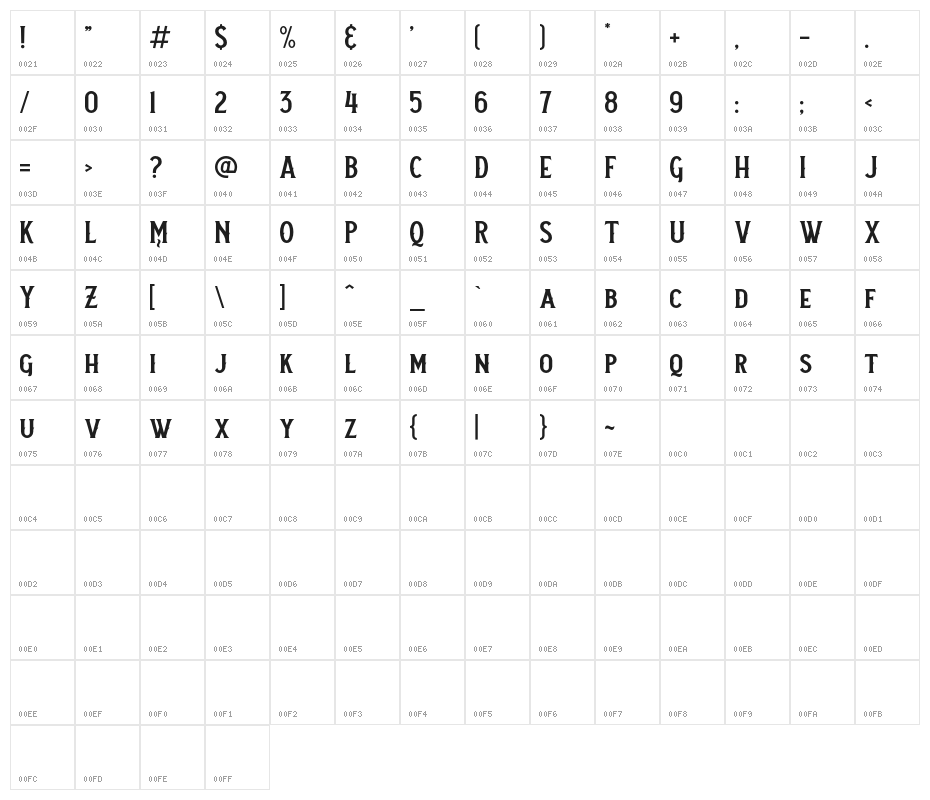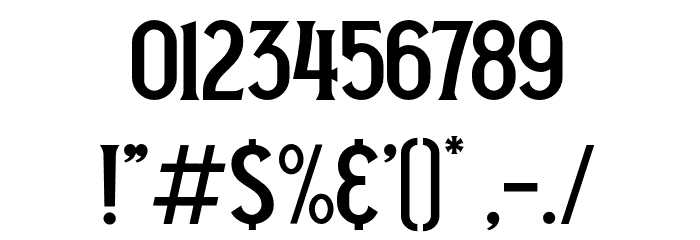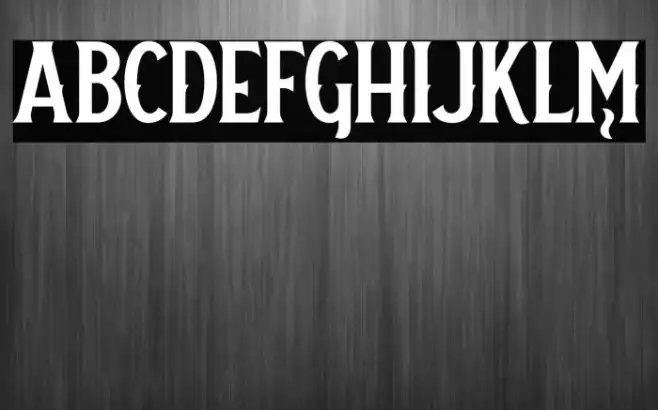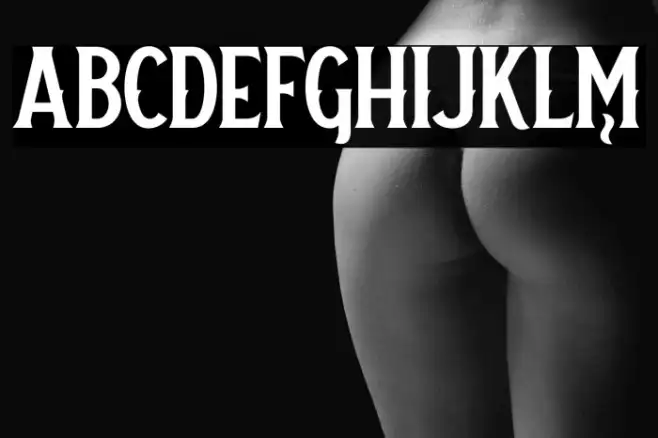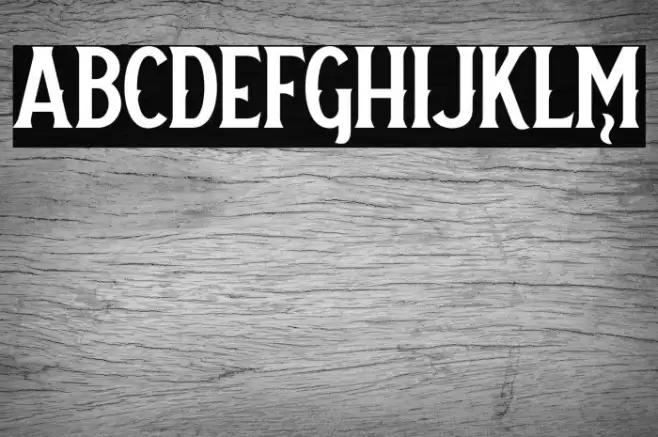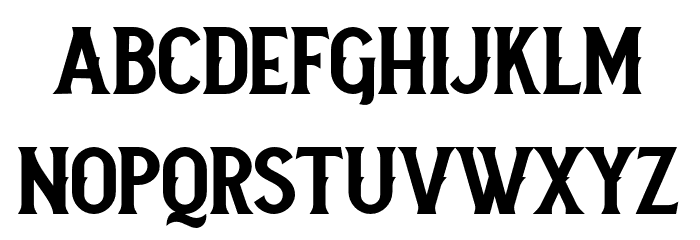
NeueStanley Font
NeueStanley Description
This font features a bold and striking design with a vintage flair, characterized by its sharp serifs and strong vertical stress. The uppercase letters are particularly prominent, with a distinct presence that commands attention. The lowercase letters maintain the same boldness, ensuring consistency across the typeface. Numerals are clear and robust, making them easily legible. The special characters are crafted with the same attention to detail, providing a cohesive look throughout. This font's overall aesthetic is reminiscent of classic serif styles, yet it incorporates modern elements that make it versatile for various design needs.
| Use Case | Headlines, Logos, Editorial Design |
| Proposed Projects | Ideal for branding projects, editorial designs, posters, and any creative work that requires a classic yet modern touch. |